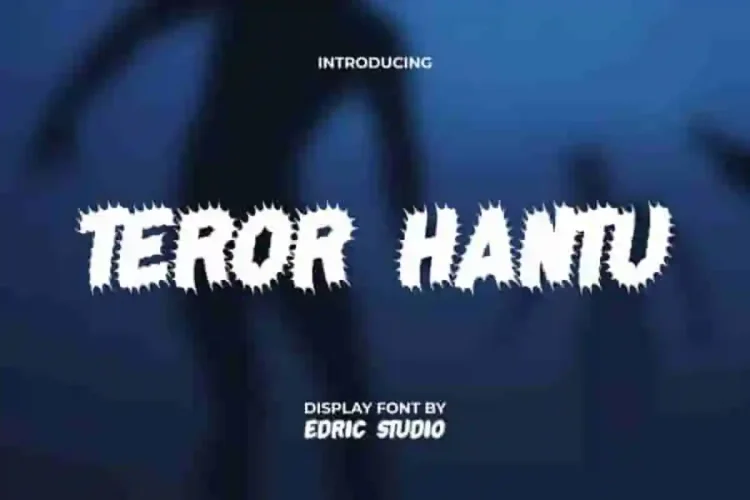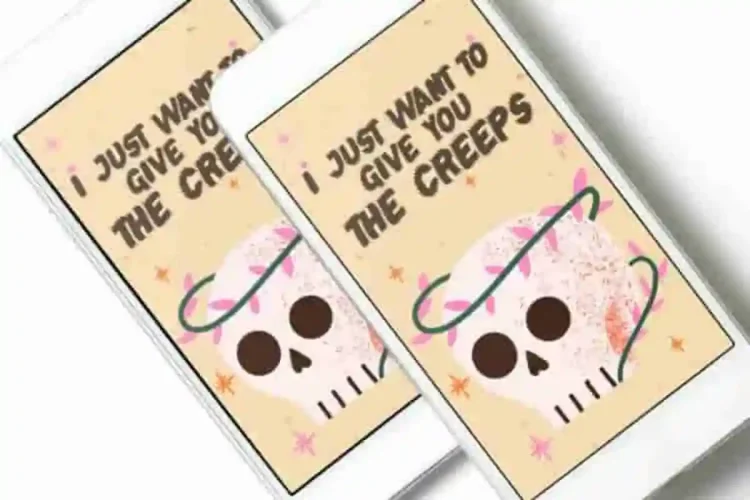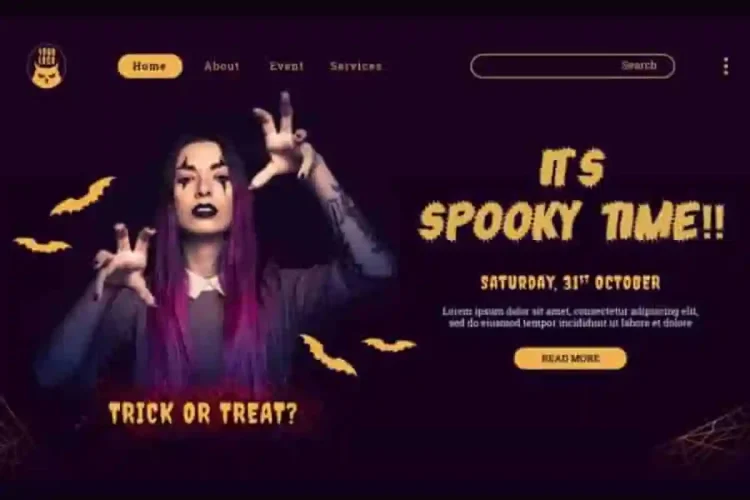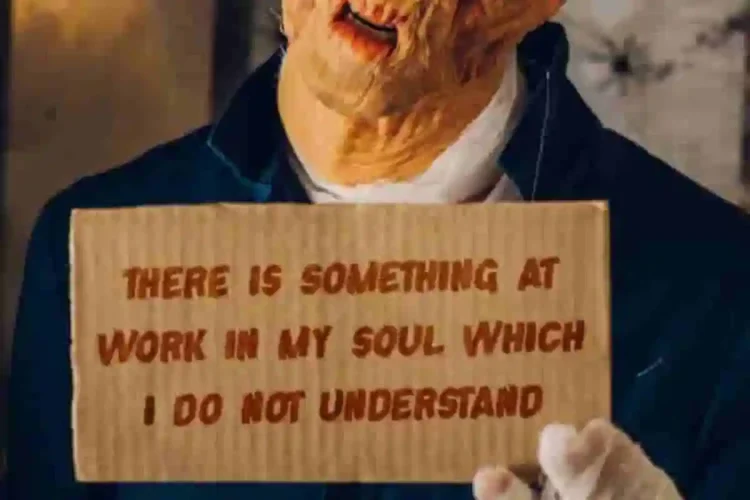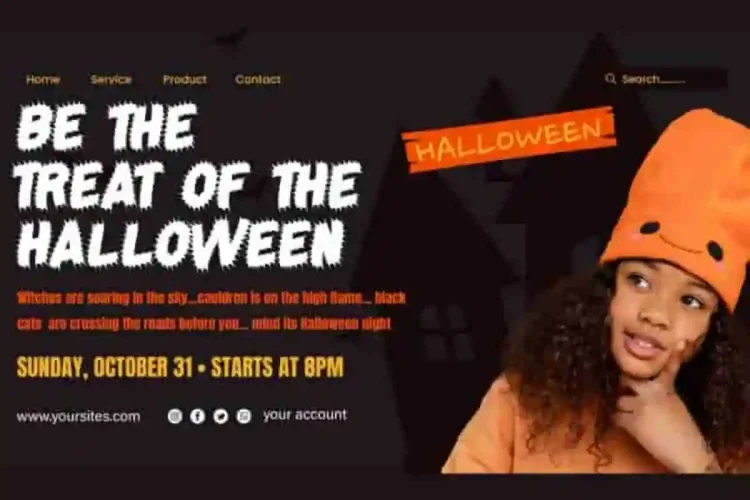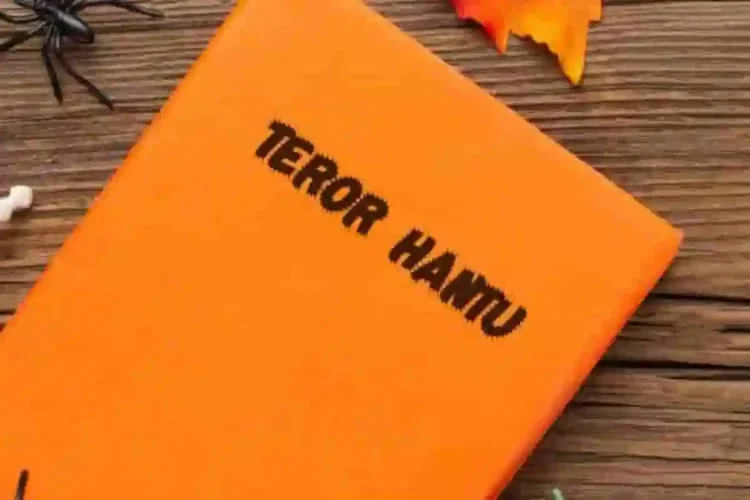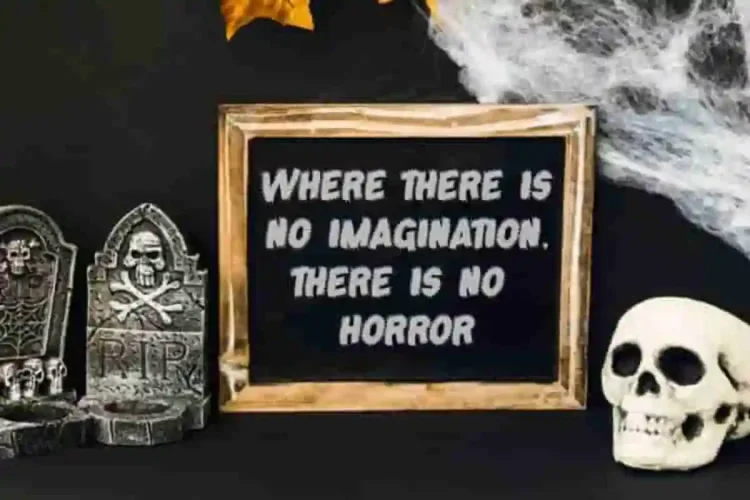
Teror Hantu Display Font step into the world of creativity with Teror Hantu Font, a bold and playful display typeface designed to capture attention instantly. Its unique design makes it perfect for creating an eye-catching display. Ideal for app view, banners, headers, logos, mockup, posters, quotes, social media, template design, titles, websites, and anything else. This adds a distinctive and standout creative edge ensuring originality of style.
Teror Hantu Display Grunge Font includes ALL CAPS uppercase and lowercase letters, numbers, punctuation, and symbols, giving you complete flexibility for any creative project. The font is versatile and fits into a variety of design contexts. This could be for a Halloween project or accessories, clothing brand, film, games, graphic design, etc.
Teror Hantu Font a playful typeface with unique decoration in each character. Combine different characters for a bespoke, handcrafted feel. It’s tested to work well in the Adobe Apps (Illustrator, Adobe InDesign, Adobe Photoshop) even work on Microsoft Word. Thanks to PUA encoding, every glyph and alternate character is accessible for custom creative control.